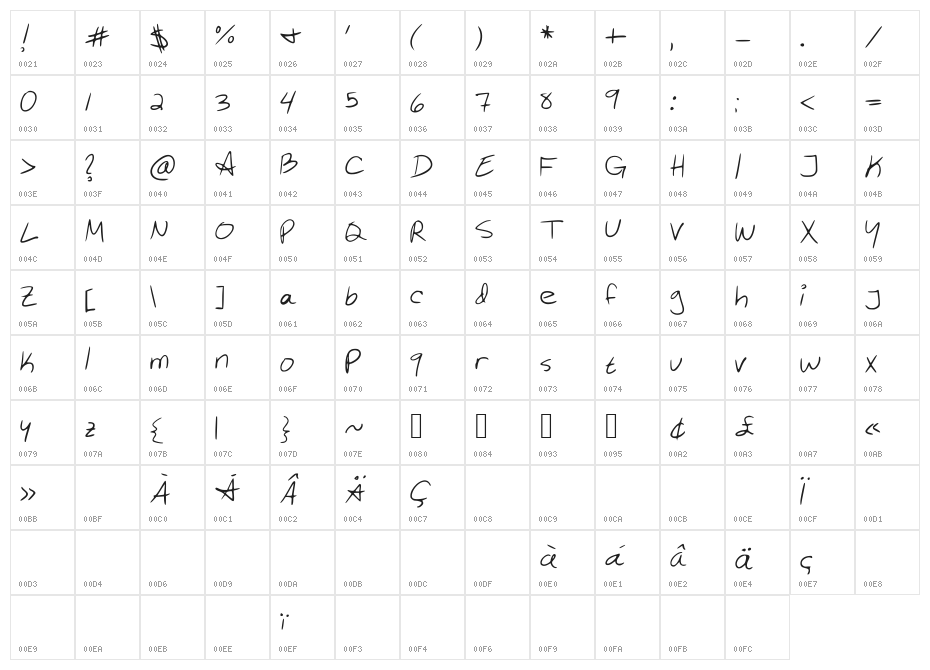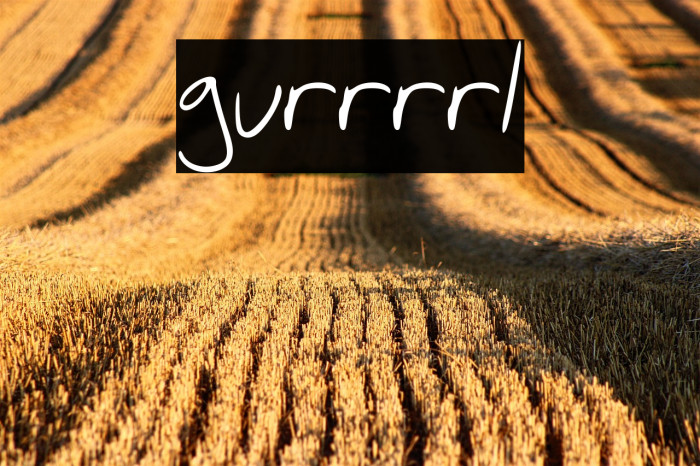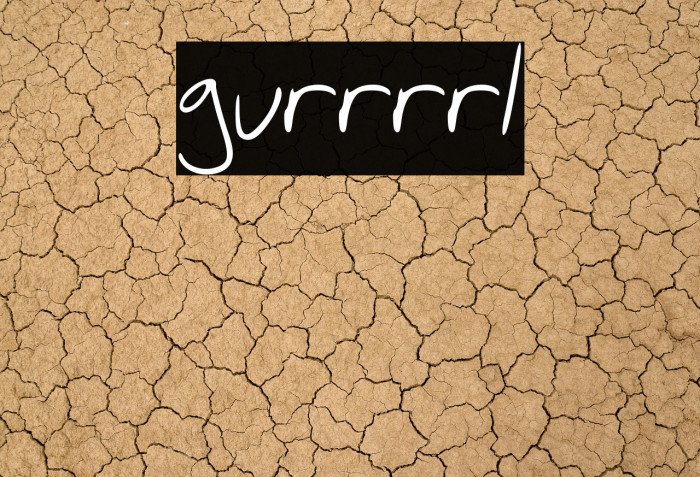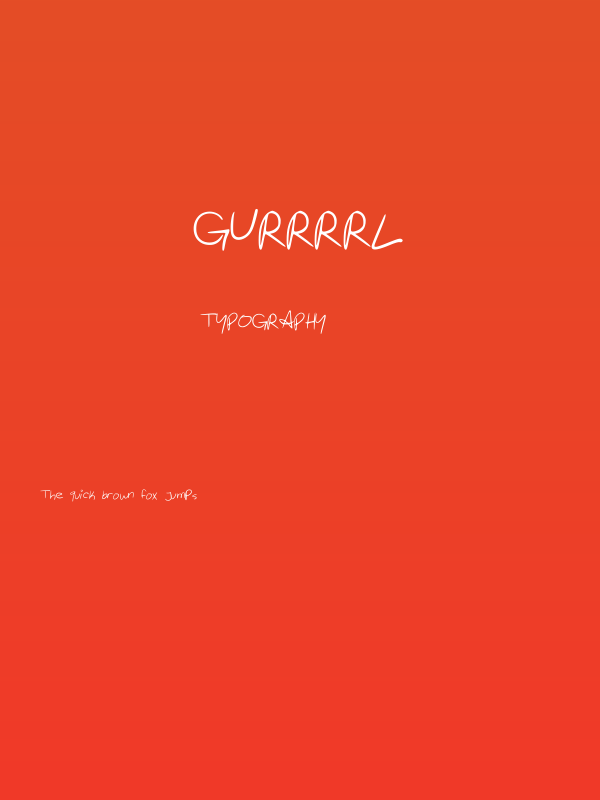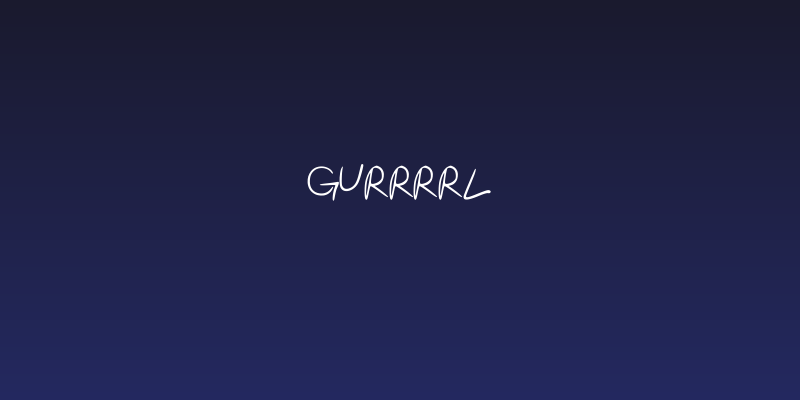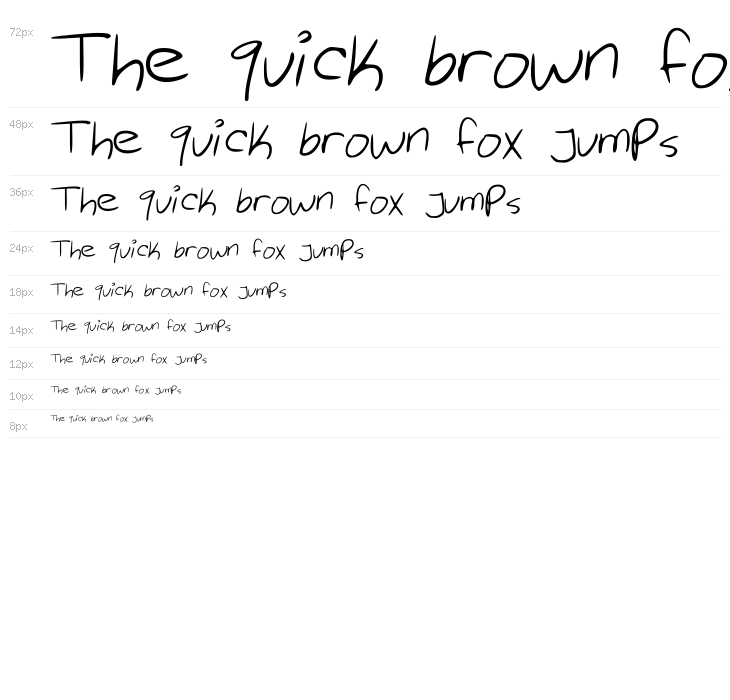
gurrrrl Font
gurrrrl Description
A playful, handwritten font with a casual and informal style, featuring irregular strokes and a lively appearance.
| Overall Style | Casual |
| Use Case | Informal text, personal projects. |
| Proposed Projects | Greeting cards, personal notes, informal branding. |